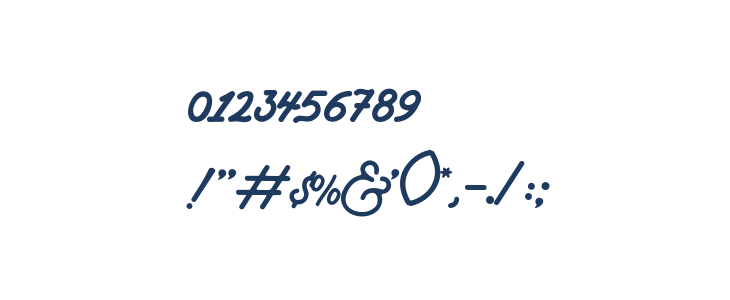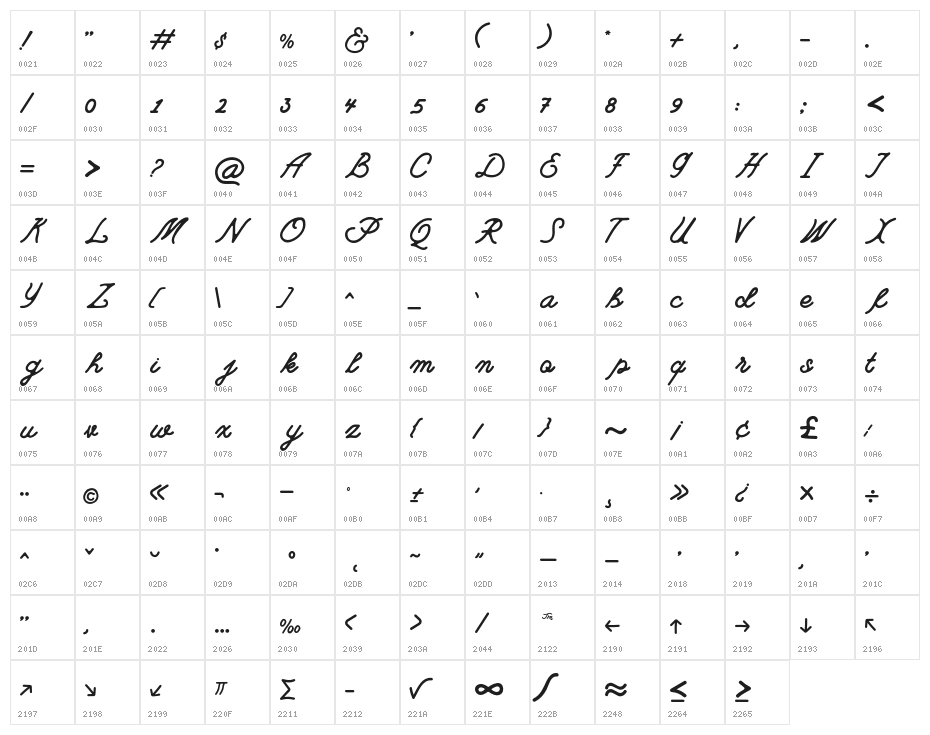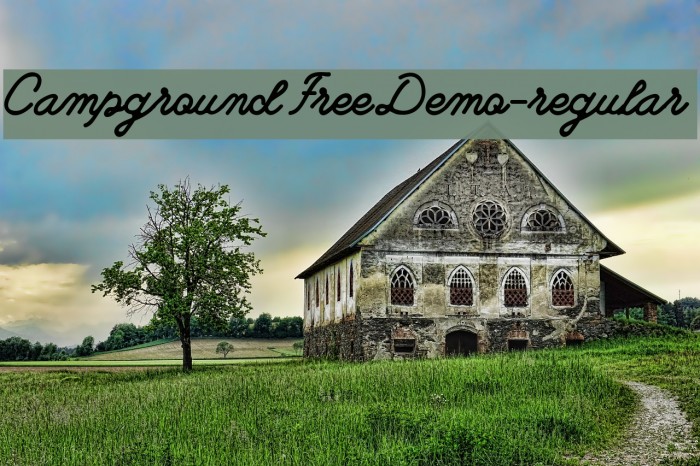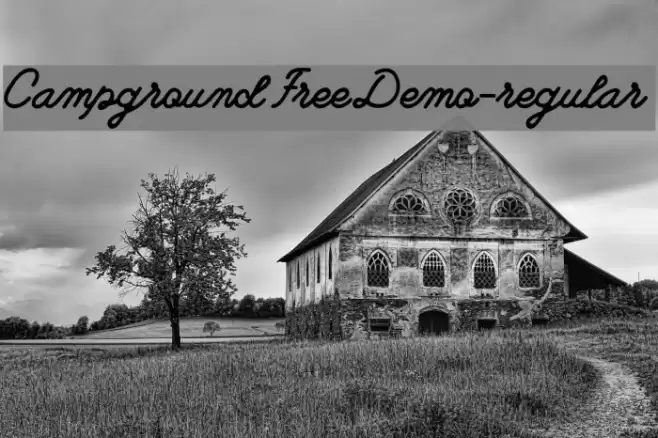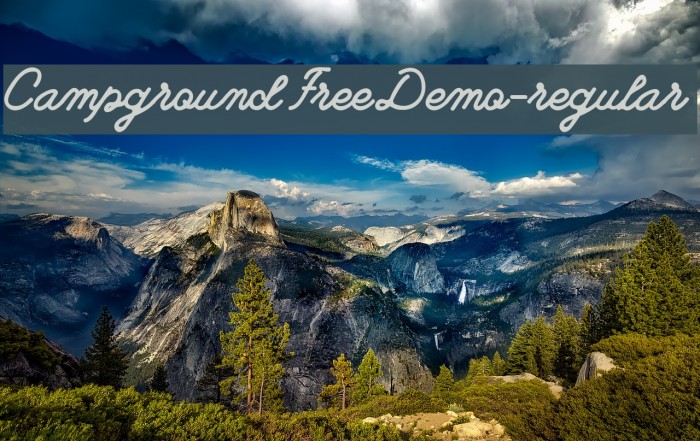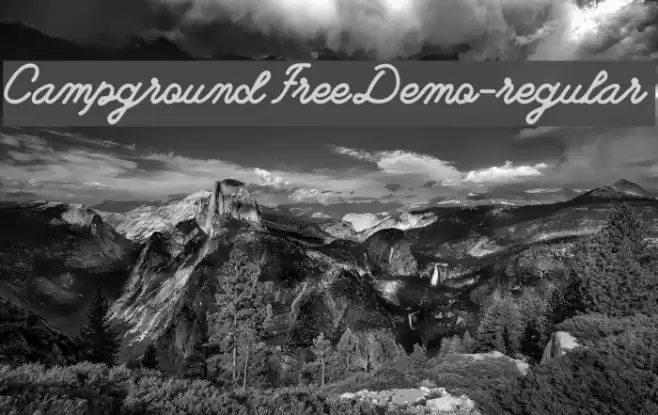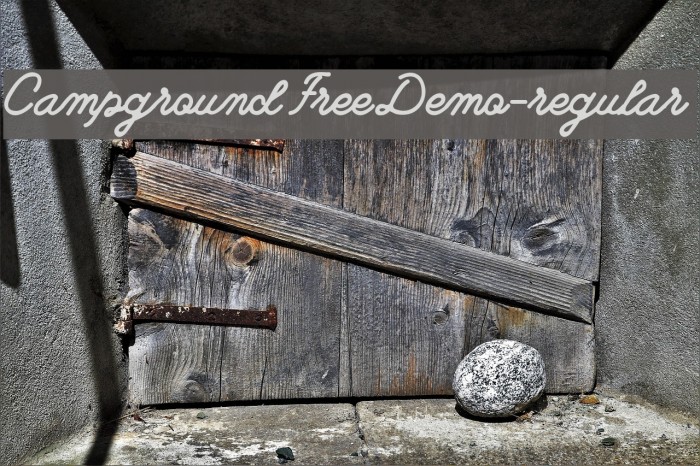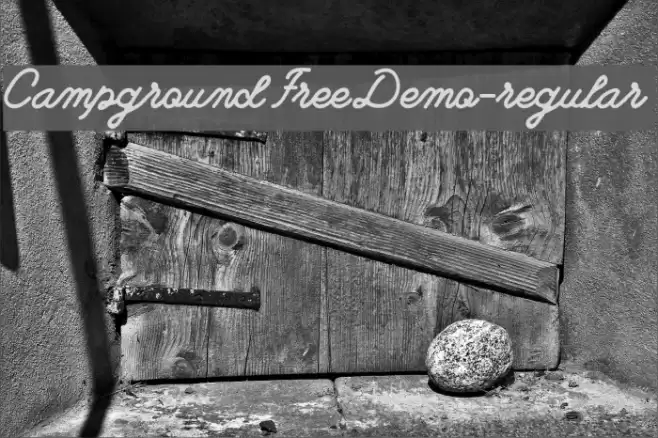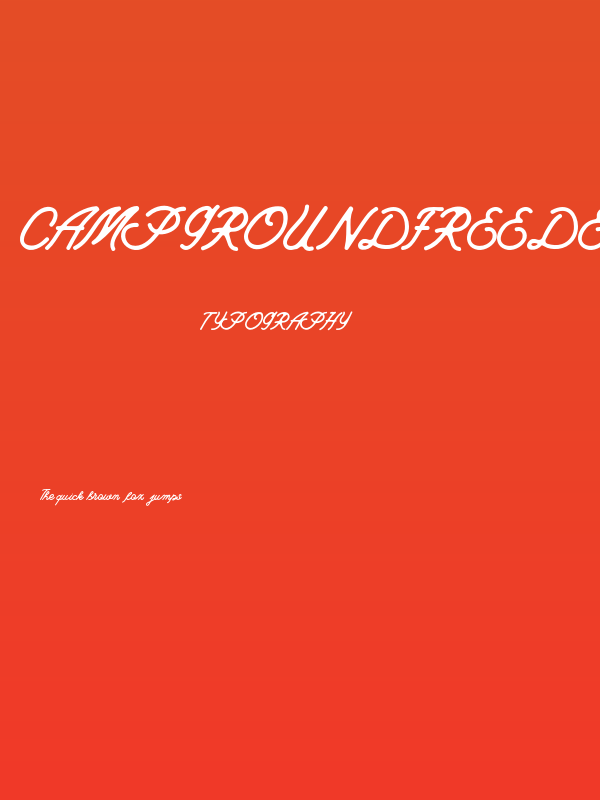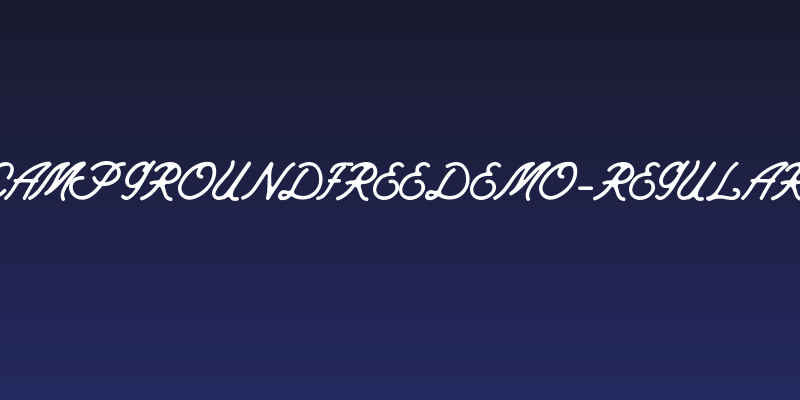
CampgroundFreeDemo-regular Font
CampgroundFreeDemo-regular Description
This font exhibits a flowing, cursive style that mimics elegant handwriting. The characters are interconnected, creating a seamless and fluid appearance. Each letter is crafted with smooth curves and a consistent stroke width, giving it a harmonious and balanced look. The uppercase letters are slightly more elaborate, while the lowercase letters maintain a simpler form, enhancing readability. Numbers and special characters are designed to match the overall aesthetic, ensuring a cohesive look across all text. This font exudes a sense of sophistication and charm, making it suitable for projects that require a personal touch.
| Proposed Projects | Ideal for wedding invitations, greeting cards, personal branding, and elegant signage. |